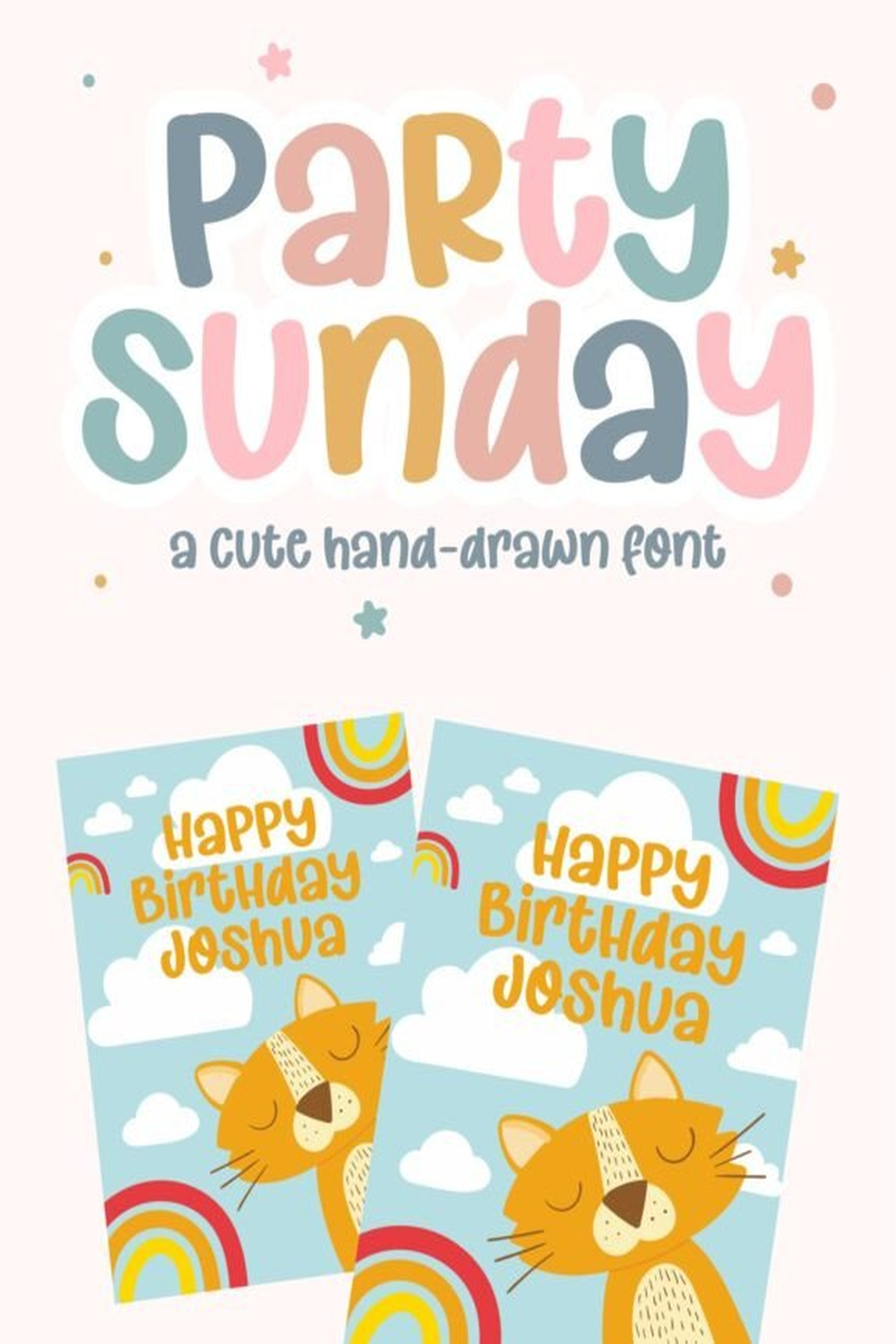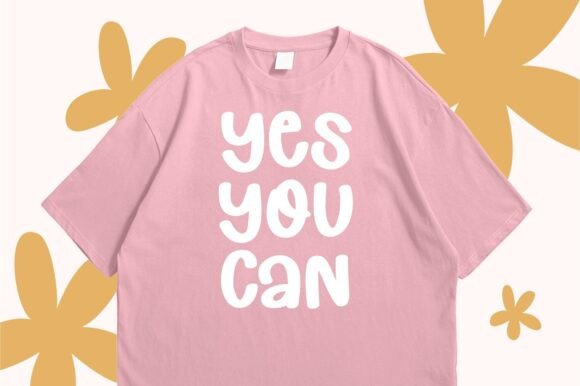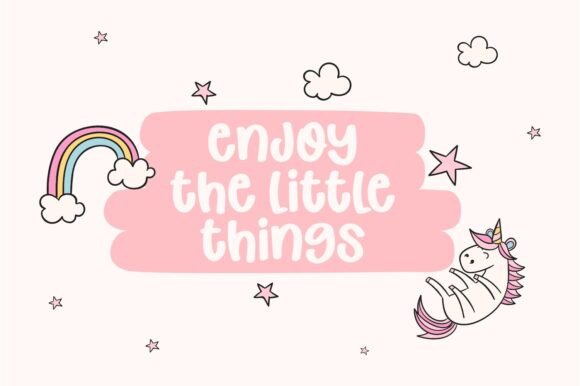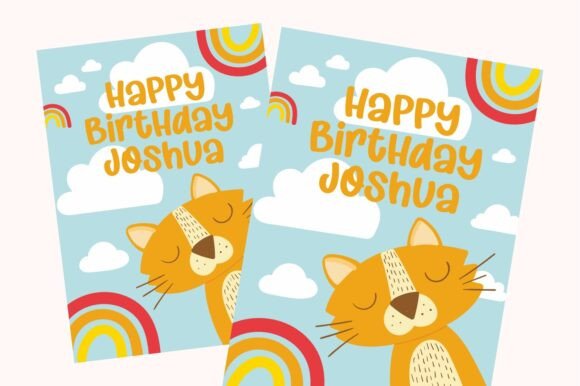
Party Sunday Font: A Cute Hand-Drawn Font for Cricut Crafts
About the Party Sunday Font
Experience the unique personality of Party Sunday Font, a font designed for impact. Welcome to Party Sunday, the cute hand-drawn font that’s ready to bring joy to all your creative projects! With its soft, bouncy letters and playful feel, this font is perfect for designing fun invitations, cheerful social media graphics, or anything that needs a whimsical touch. Its handcrafted look makes it feel personal and inviting, while the rounded edges give it a cozy, friendly vibe. Whether you’re crafting for a celebration or just want to add some personality to your work, Party Sunday will be the life of the design party! Plus, with multilingual support, your creative messages can reach everyone around the globe.